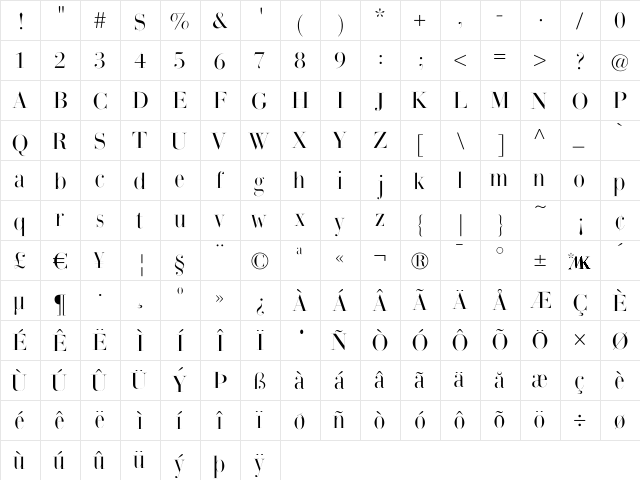
ThinManGiambattista Regular
Design Context for ThinManGiambattista Typeface
ThinManGiambattista takes a measured approach to typography — its balanced proportions and neutral character make it a reliable workhorse for both digital and print work. Its slender proportions lend an understated elegance to any composition.